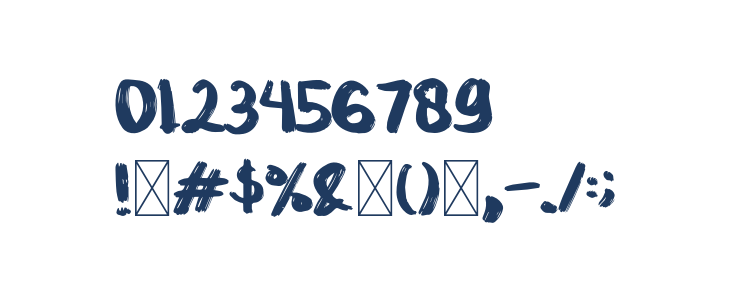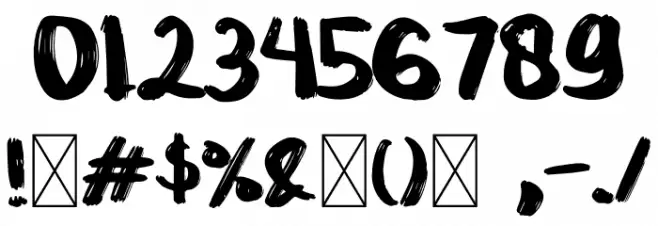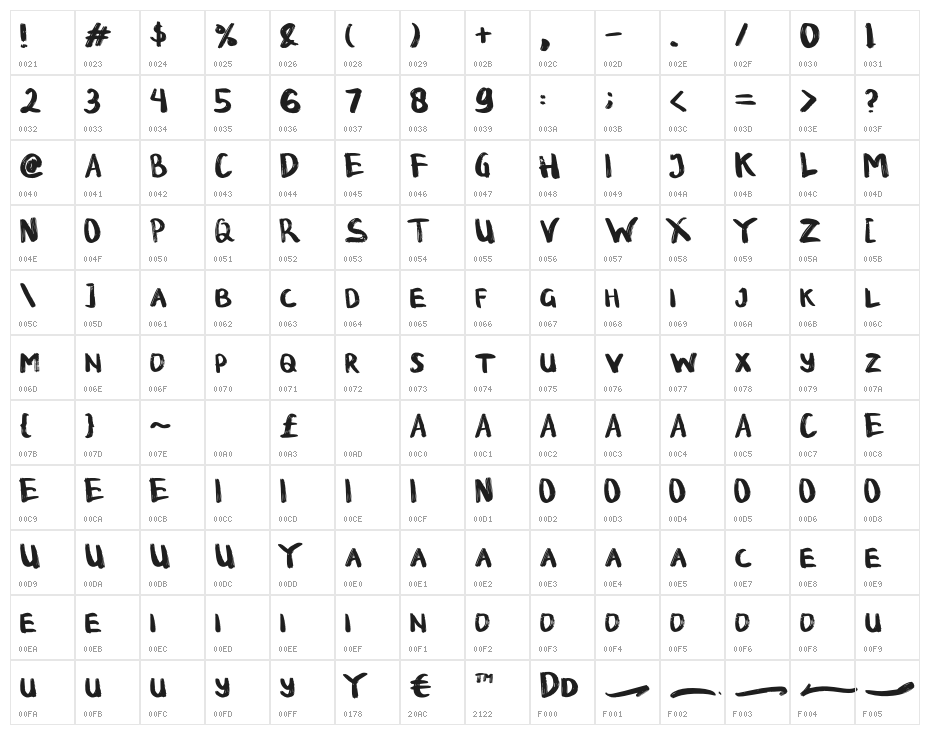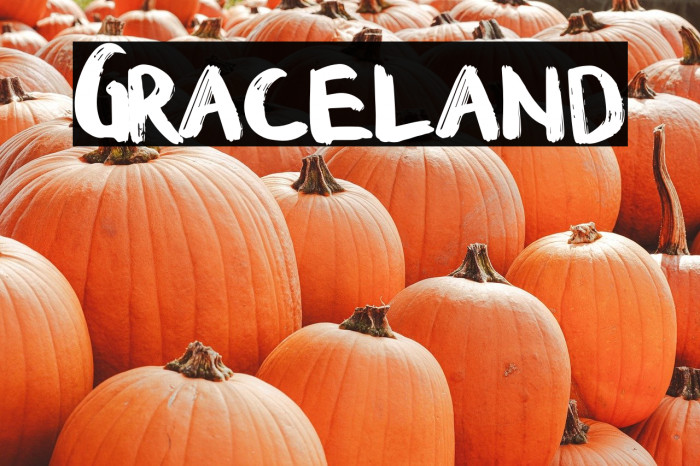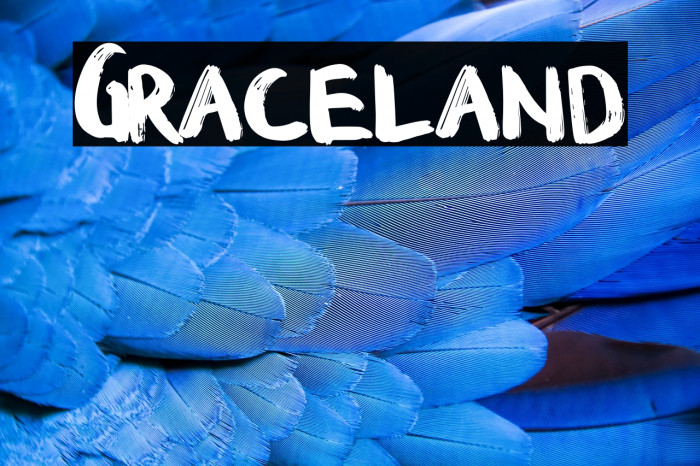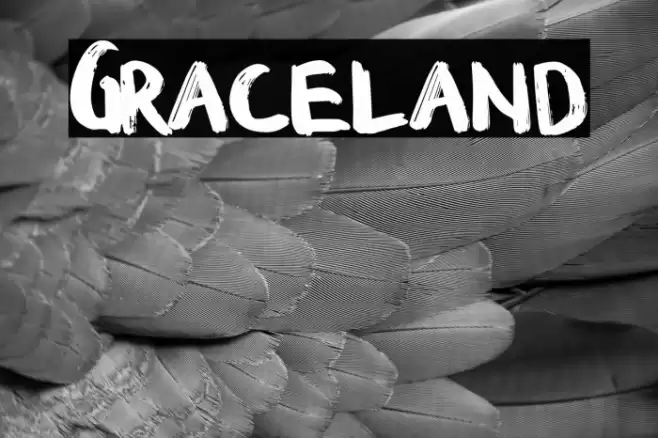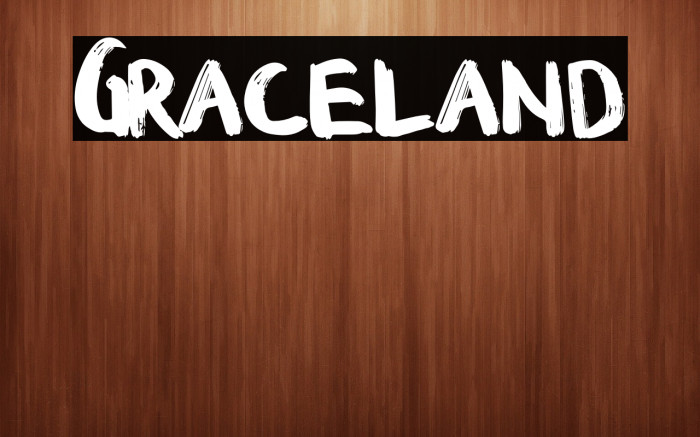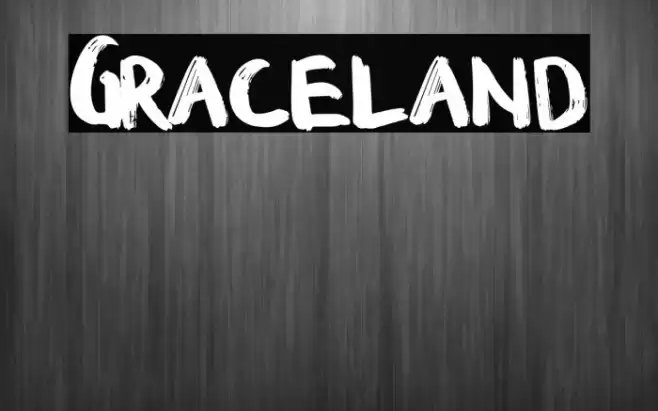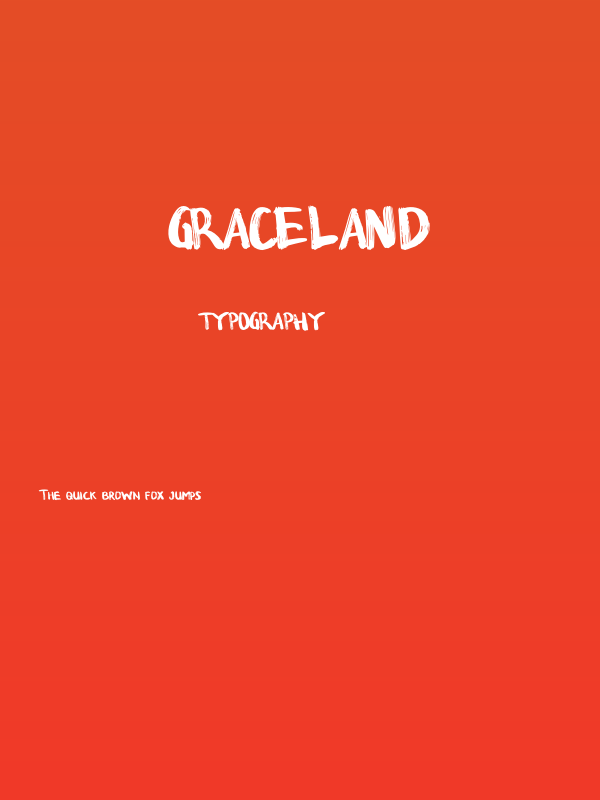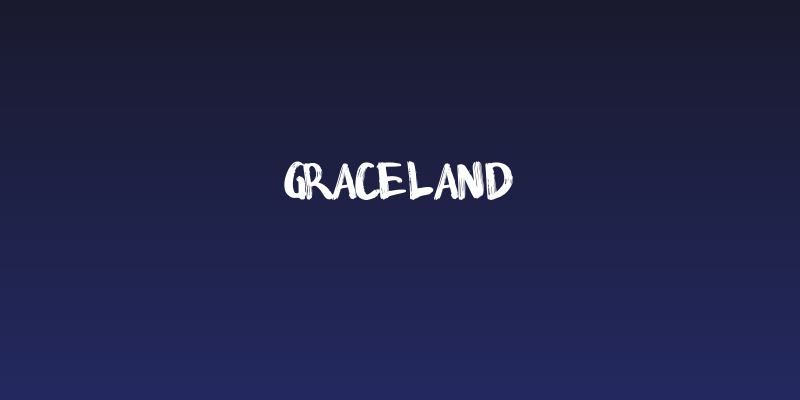
Graceland Font
Graceland Description
This font features a bold and expressive brush style, characterized by its dynamic and energetic strokes. The letters are crafted with a hand-painted appearance, giving them a raw and artistic feel. The uppercase and lowercase letters maintain a consistent style, with varying thickness in the strokes that adds a sense of movement and vitality. The numbers and special characters are equally bold, ensuring a cohesive look across all elements. This font's unique style makes it stand out, perfect for projects that require a touch of creativity and flair.